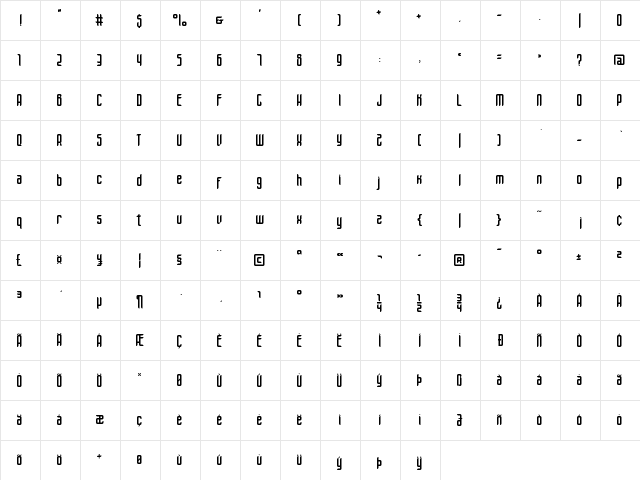
Unik Type 2.0 Regular
| Designer | Erik Getzel |
Design Context for Unik Type 2.0 Typeface
Unik Type 2.0 offers clean, dependable letterforms without strong stylistic allegiance, making it a practical choice for designers who need flexibility.